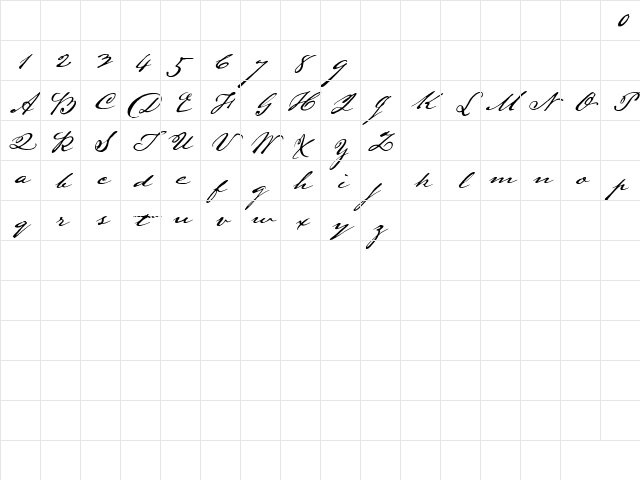
Lamar Pen Demo Regular Free Font
Lamar Pen Demo Regular
Design Context for Lamar Pen Demo
Lamar Pen Demo is a composed and adaptable typeface that performs quietly and consistently across a wide range of design contexts.